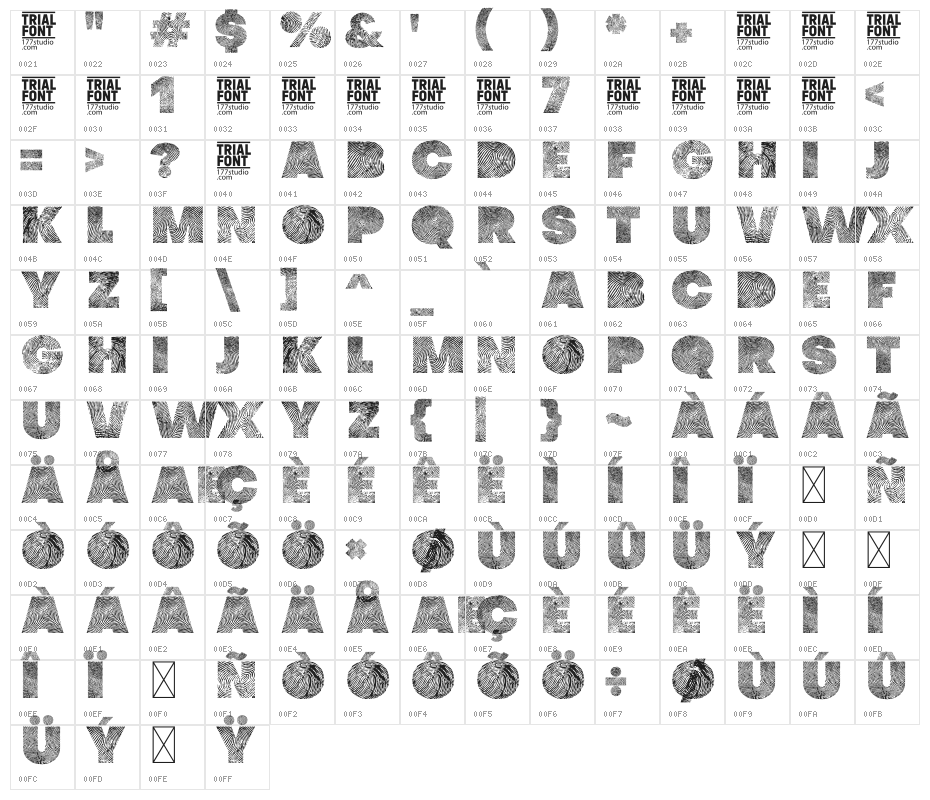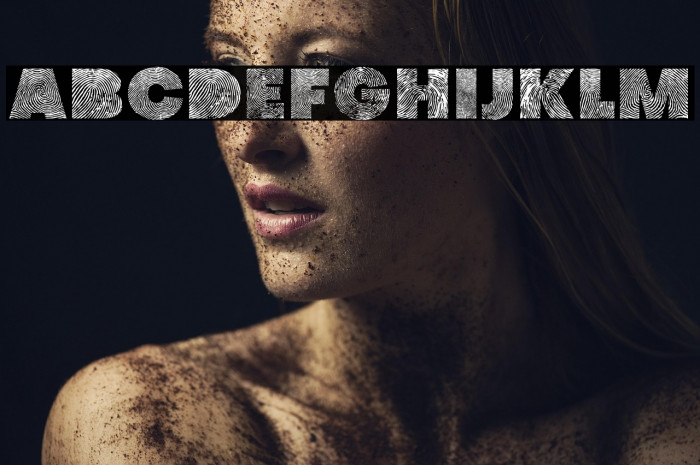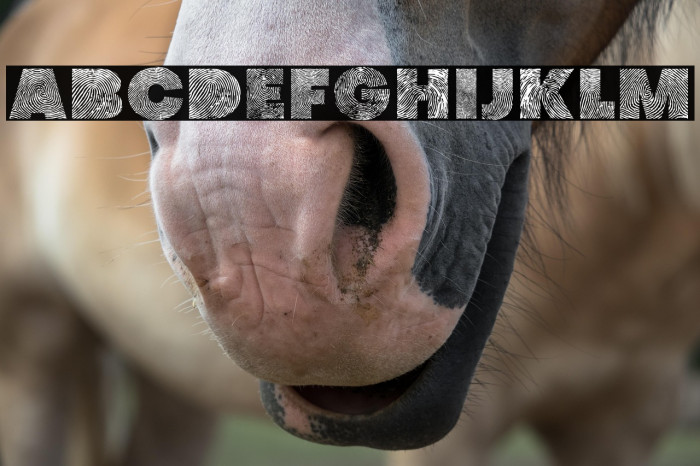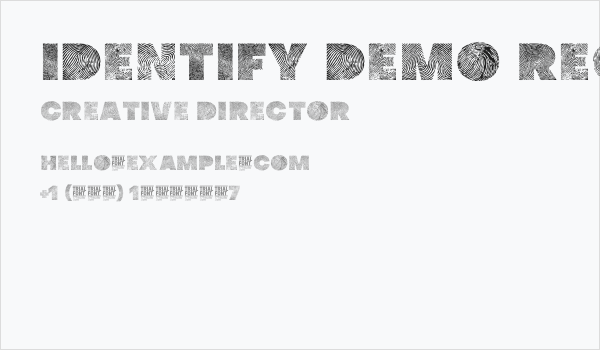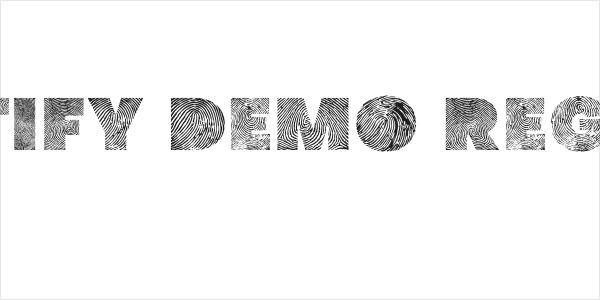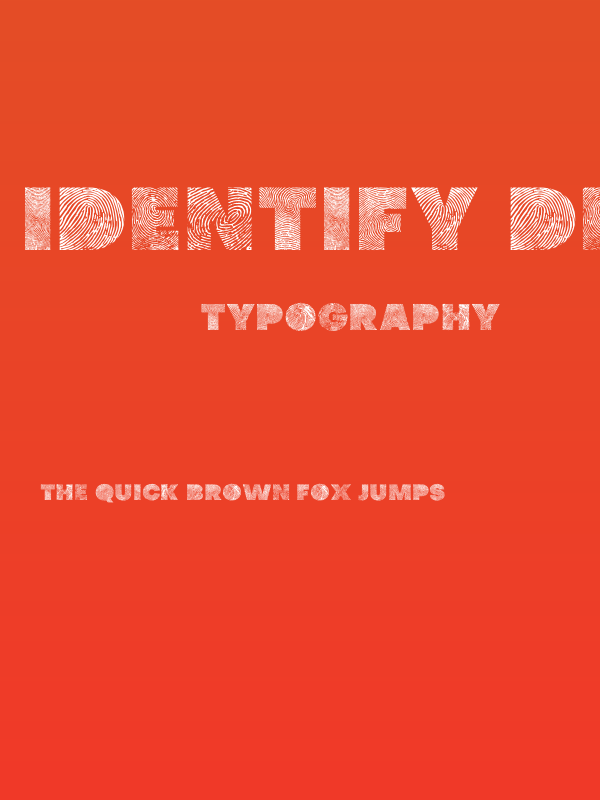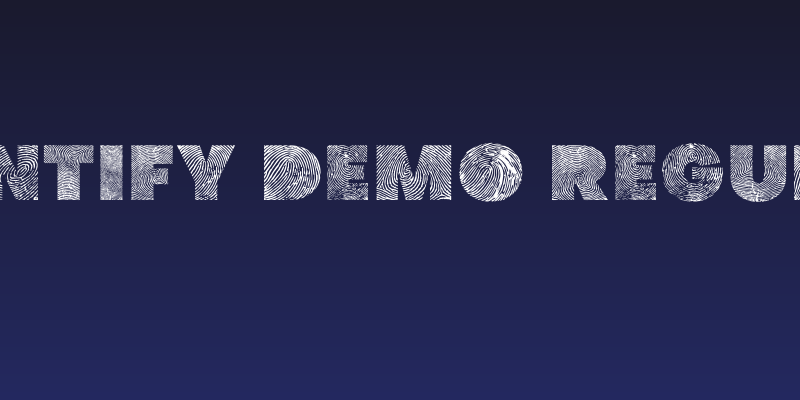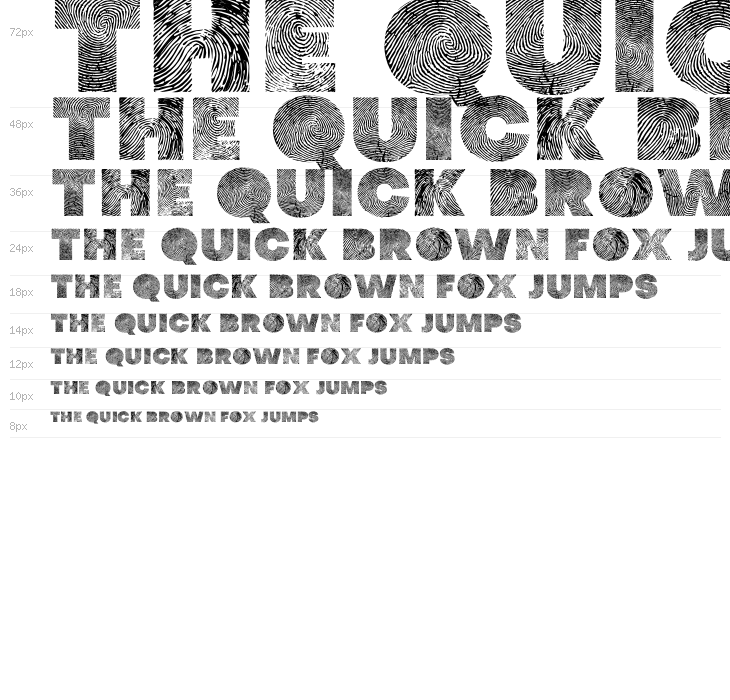
identify demo Regular Font
identify demo Regular Description
This font features a unique fingerprint pattern within each character, giving it a textured and intricate appearance. The uppercase letters are bold and prominent, while the lowercase letters maintain the same style, ensuring consistency throughout. Numbers and special characters also follow this distinctive design, making the font versatile for various creative projects. The overall look is modern and artistic, suitable for eye-catching designs.
Overall StyleModern, Artistic
Proposed ProjectsIdeal for branding, posters, album covers, and any project requiring a distinctive and artistic touch.